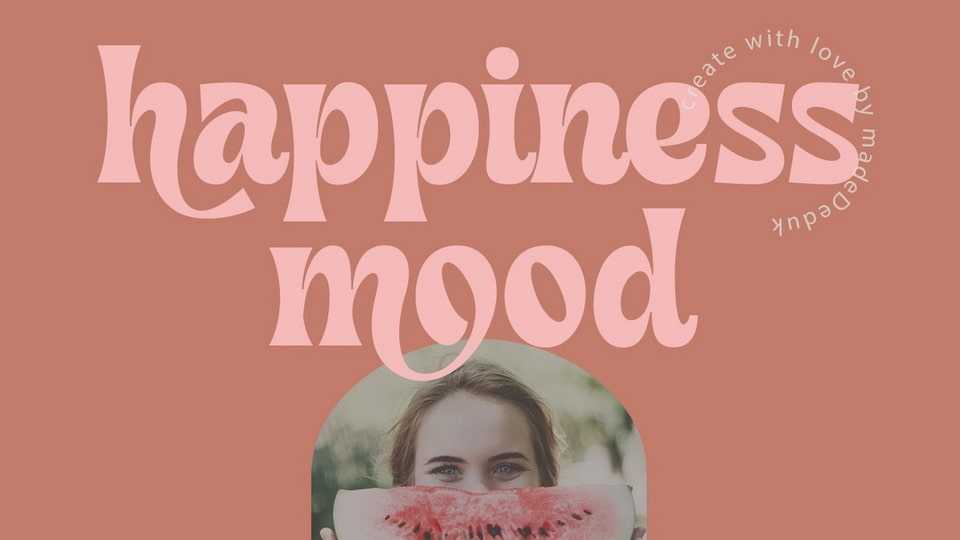
Download Happiness Mood font, a playful and whimsical display typeface inspired by retro lettering. Use Happiness Mood font for any branding, product packaging, invitation, quotes, t-shirt, label, poster, logo etc.